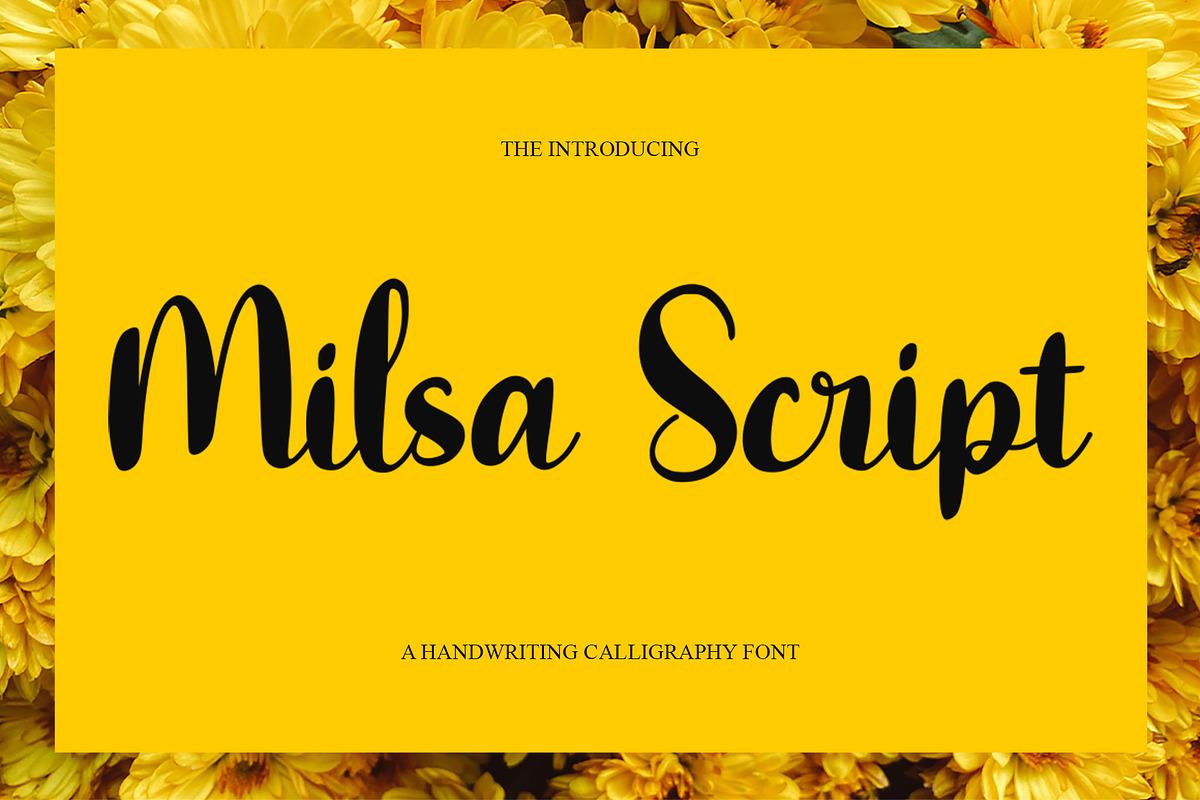
Milsa Script - Calligraphy Font Free Download is an elegant, flowing script typeface with beautiful, intricate letterforms inspired by traditional calligraphy. Perfect for wedding invitations, greeting cards, logos, branding, and any project that requires a sophisticated, handwritten touch, this font exudes grace and charm.
The smooth curves and delicate strokes of Milsa Script make it ideal for high-end, artistic designs, adding a personal and luxurious feel to any layout. Whether you're designing for a boutique, event, or creating custom stationery, this font adds an element of elegance and timeless beauty.
Bring sophistication to your typography with Milsa Script - Calligraphy Font Free Download, and create stunning, handwritten-style designs that stand out with elegance. Perfect for designers who appreciate fine calligraphy and graceful, flowing script fonts.